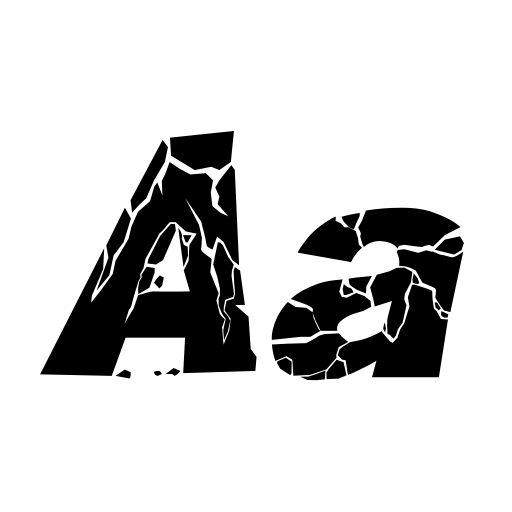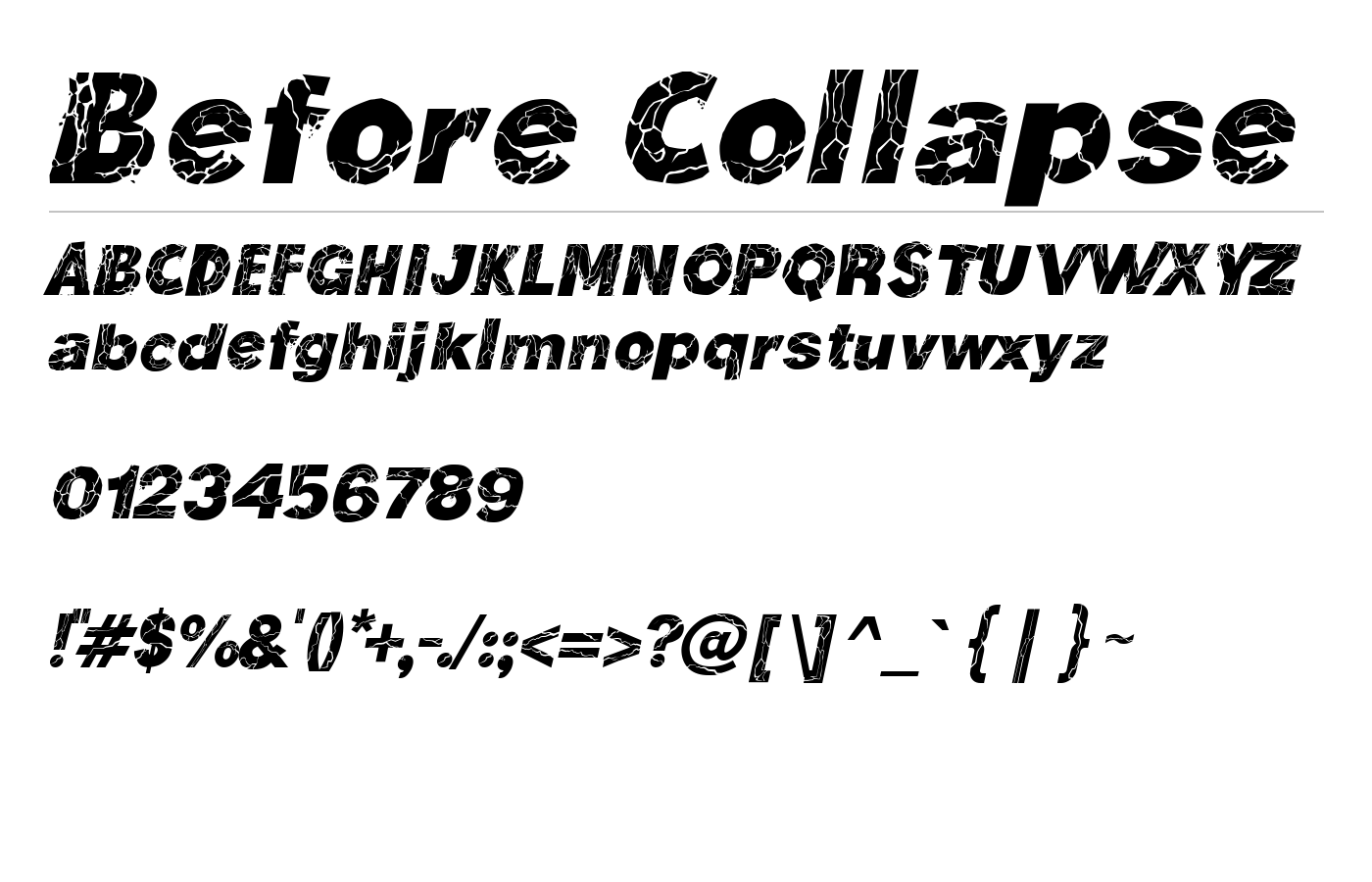
Before Collapse is a bold, condensed sans serif font with a distinctive cracked texture that gives it a rugged, distressed appearance. Its strong weight and italicized slant add a dynamic, urgent feel, making it perfect for striking headlines, posters, or branding that aims to convey intensity or a sense of disruption. This font works best in creative projects where a gritty, impactful style is desired, standing out with its unique fractured design.
Before Collapse Font
About Before Collapse Font
| Font family | Before Collapse Font |